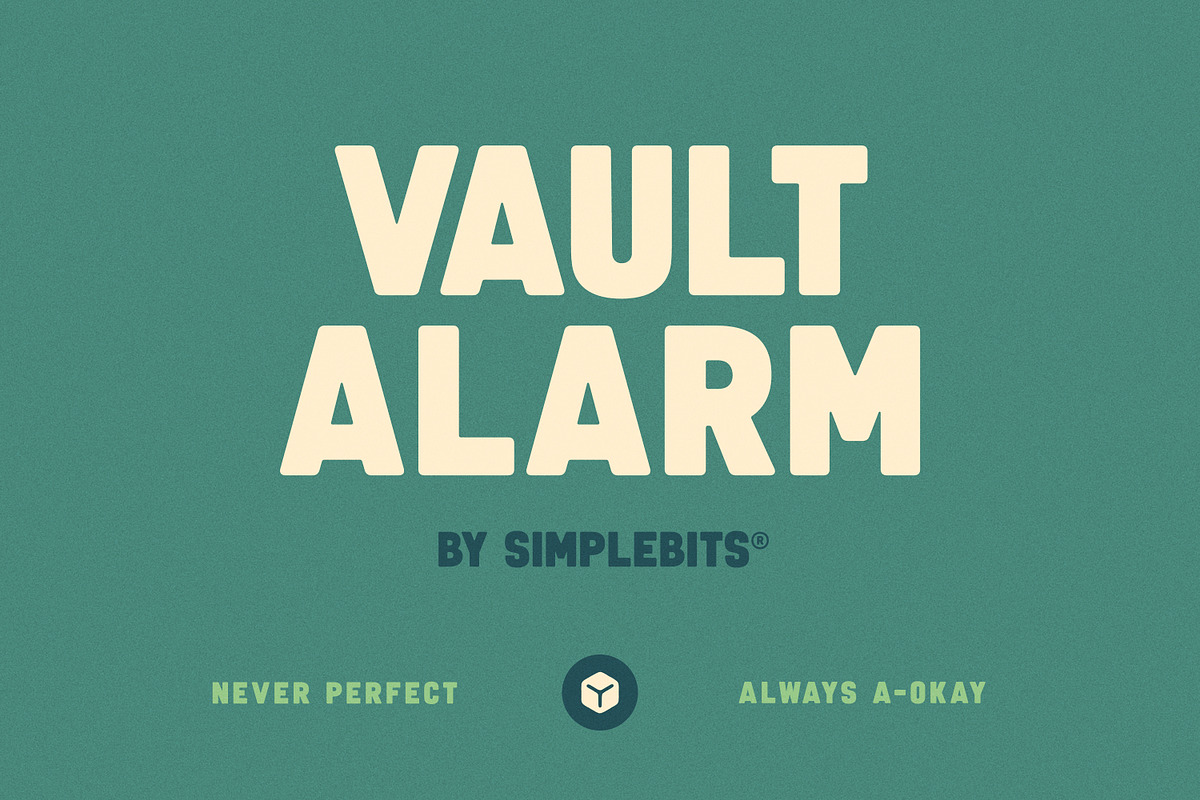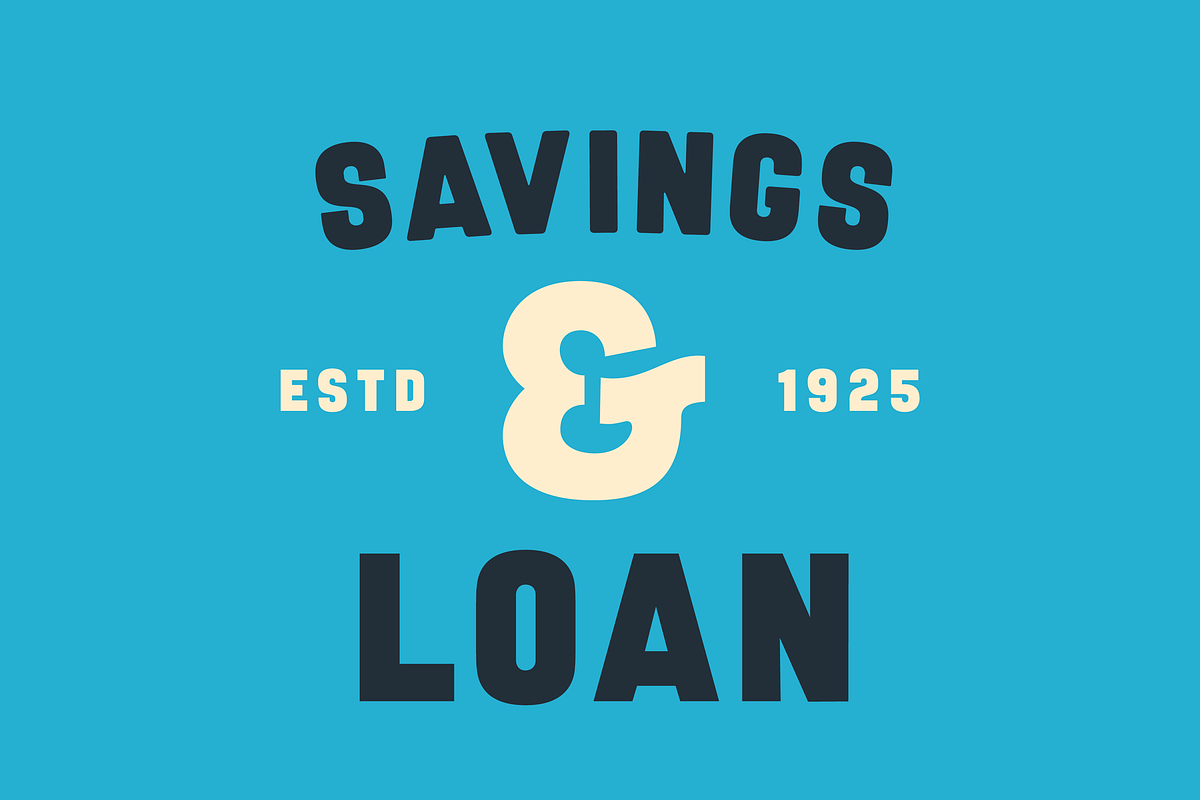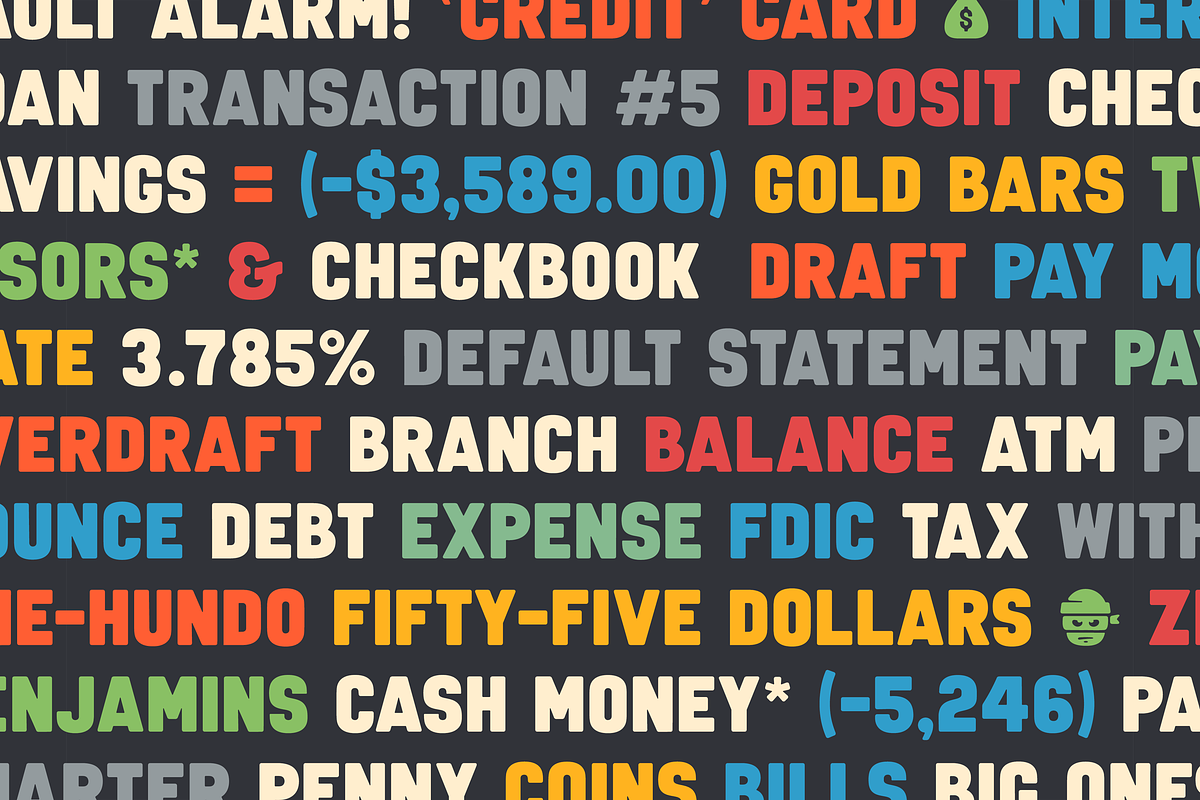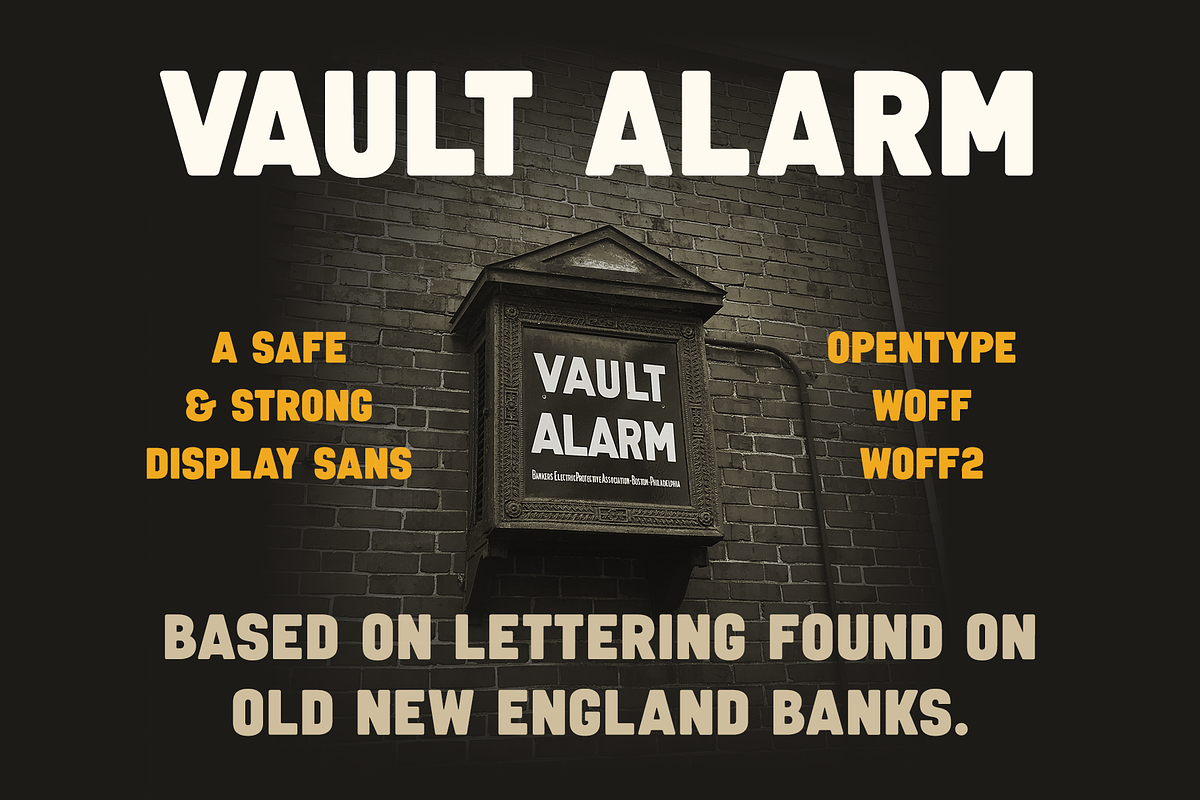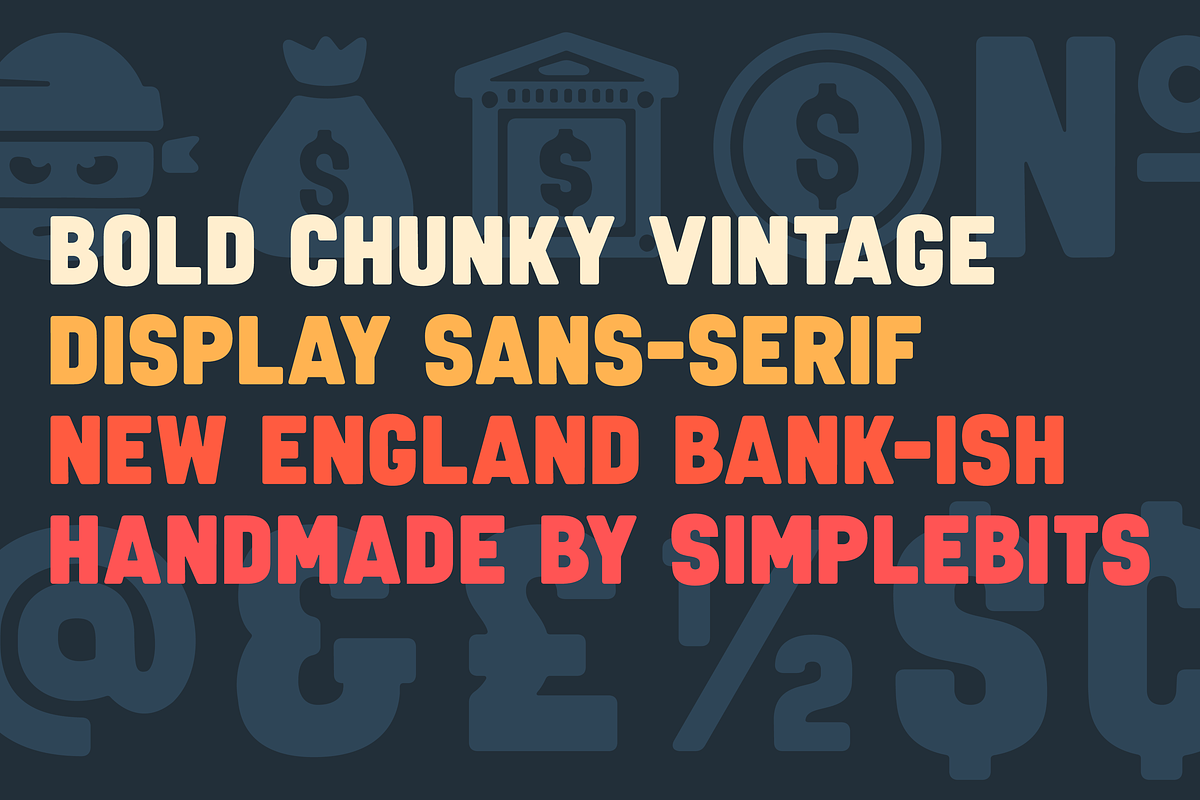
Vault Alarm — Vintage sign font
For years, I’ve walked by several of these “Vault Alarm” boxes on the side of old New England banks. “Someday, I’d love to turn that lettering into a font”, I’d say. I finally made that a reality!
Vault Alarm is a chunky, quirky, display sans-serif I designed based on those handful of letters. It’s all-caps with numbers and basic punctuation—plus a few bonus alternate characters (G, Z, #, &). It comes in Regular (subtly-rounded) and Sharp which are both included.